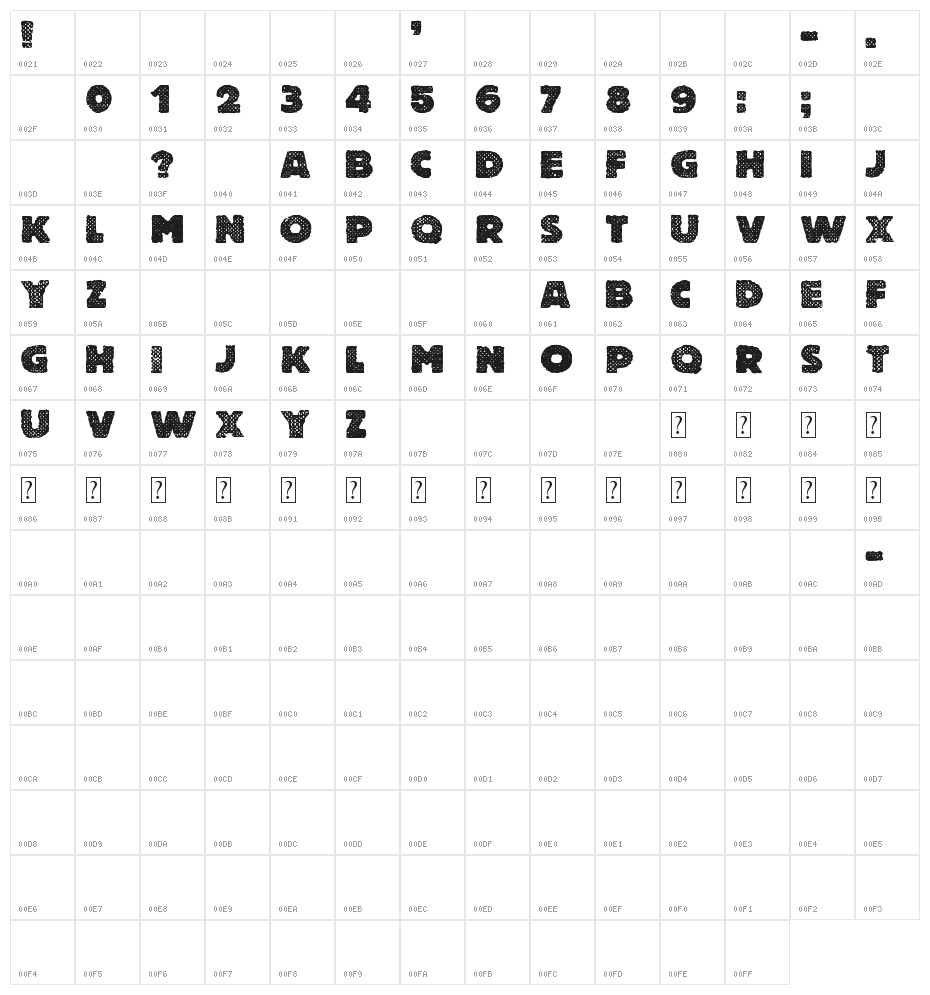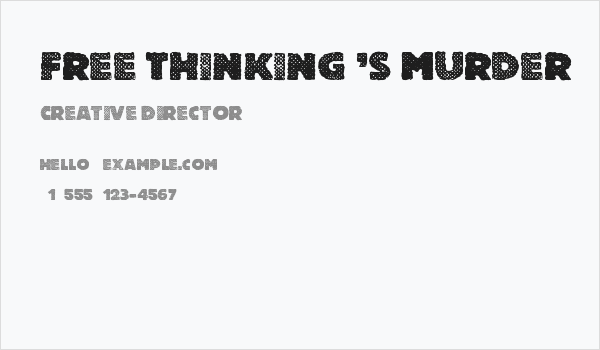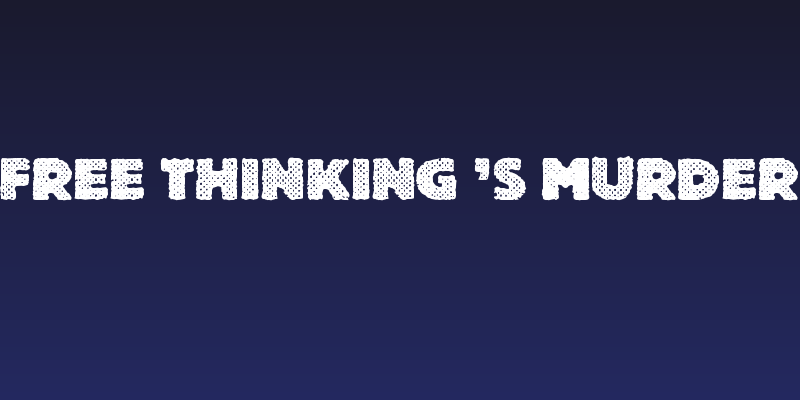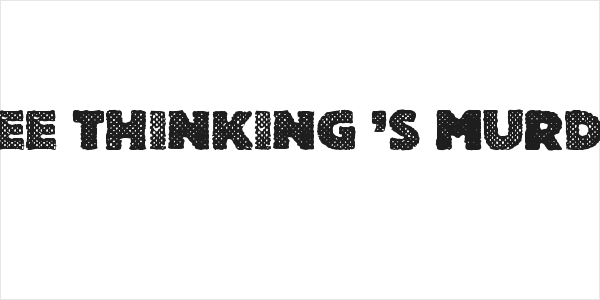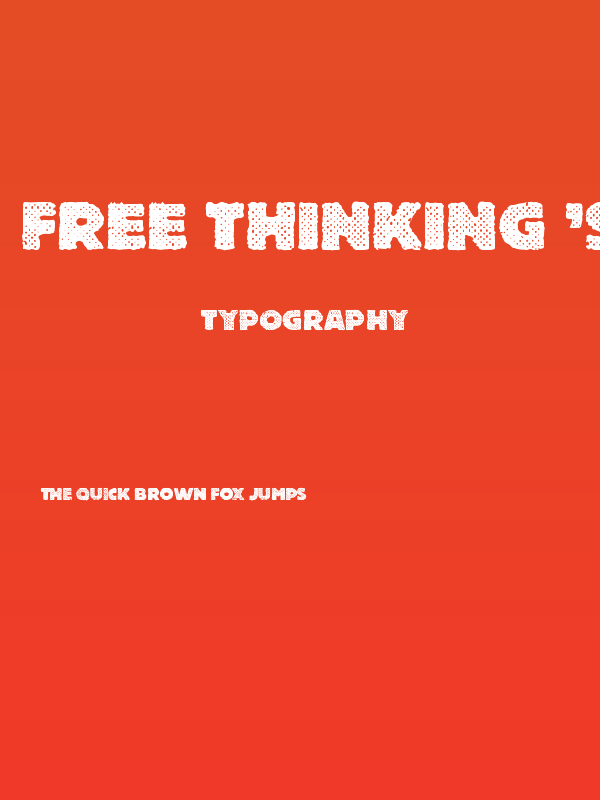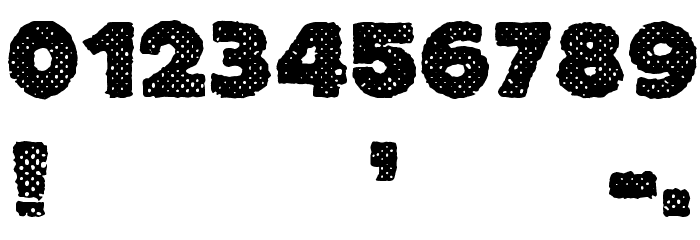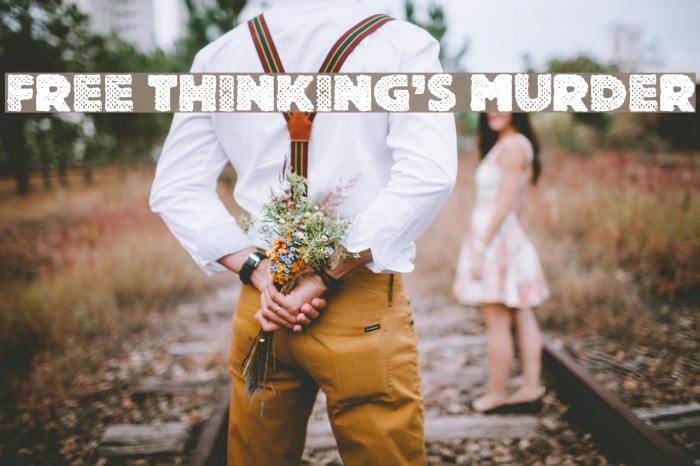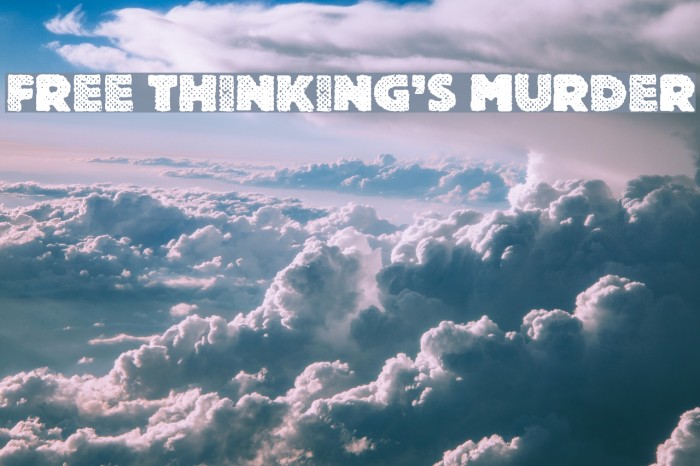
Free Thinking's Murder Font
Free Thinking's Murder Description
This font features a bold and playful design with a unique polka dot pattern filling each character. The letters are uppercase and lowercase, with numbers and a selection of punctuation marks. The style is distinctly decorative, making it stand out with its bold presence and whimsical texture. The polka dots add a sense of fun and creativity, making it suitable for projects that require a lively and engaging visual element. The characters are evenly spaced, ensuring readability despite the intricate design. This font is ideal for eye-catching headlines, posters, and creative branding projects.
| Overall Style | Playful, Whimsical, Decorative |
| Use Case | Headlines, Posters, Creative Branding |
| Proposed Projects | Ideal for children's book covers, playful branding, event posters, and creative social media graphics. |